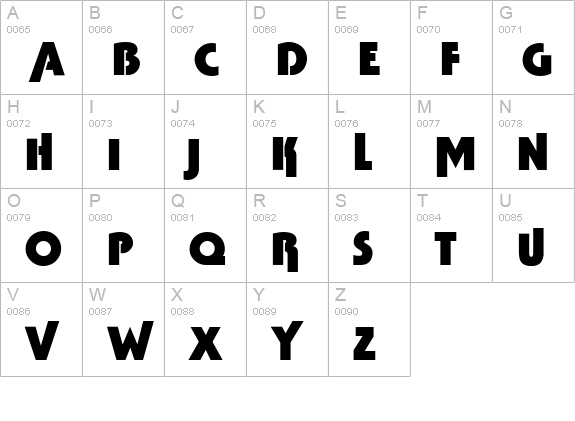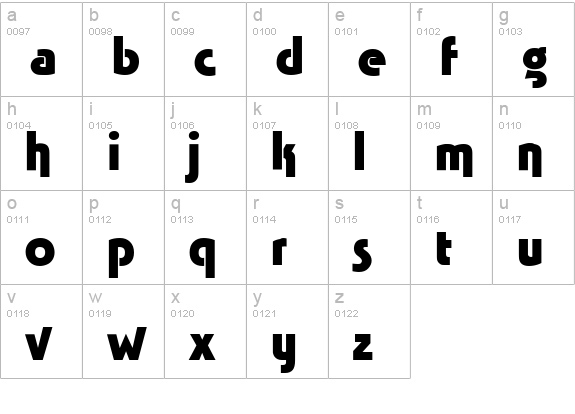
Tabasco-Bold is a strong, high-contrast variant in the Tabasco typeface family \xE2\x80\x94 well suited to headlines, attention-grabbing titles, and strong calls-to-action.
Tabasco-Bold is a striking and versatile font that exudes confidence and modernity. With its bold and assertive letterforms, this typeface is perfect for making a bold statement in any design project. Whether used for headlines, logos, or branding materials, Tabasco-Bold commands attention and leaves a lasting impression. What sets Tabasco-Bold apart is not only its bold and impactful design, but also the fact that it is available for free download at FontsMarket.com. This means that designers and creatives can easily access this high-quality font without any cost, making it a valuable addition to any font collection. Embrace the power and style of Tabasco-Bold in your next design project, and watch as your creations come to life with a touch of boldness and sophistication. Download this font for free and elevate your designs to new heights with Tabasco-Bold.